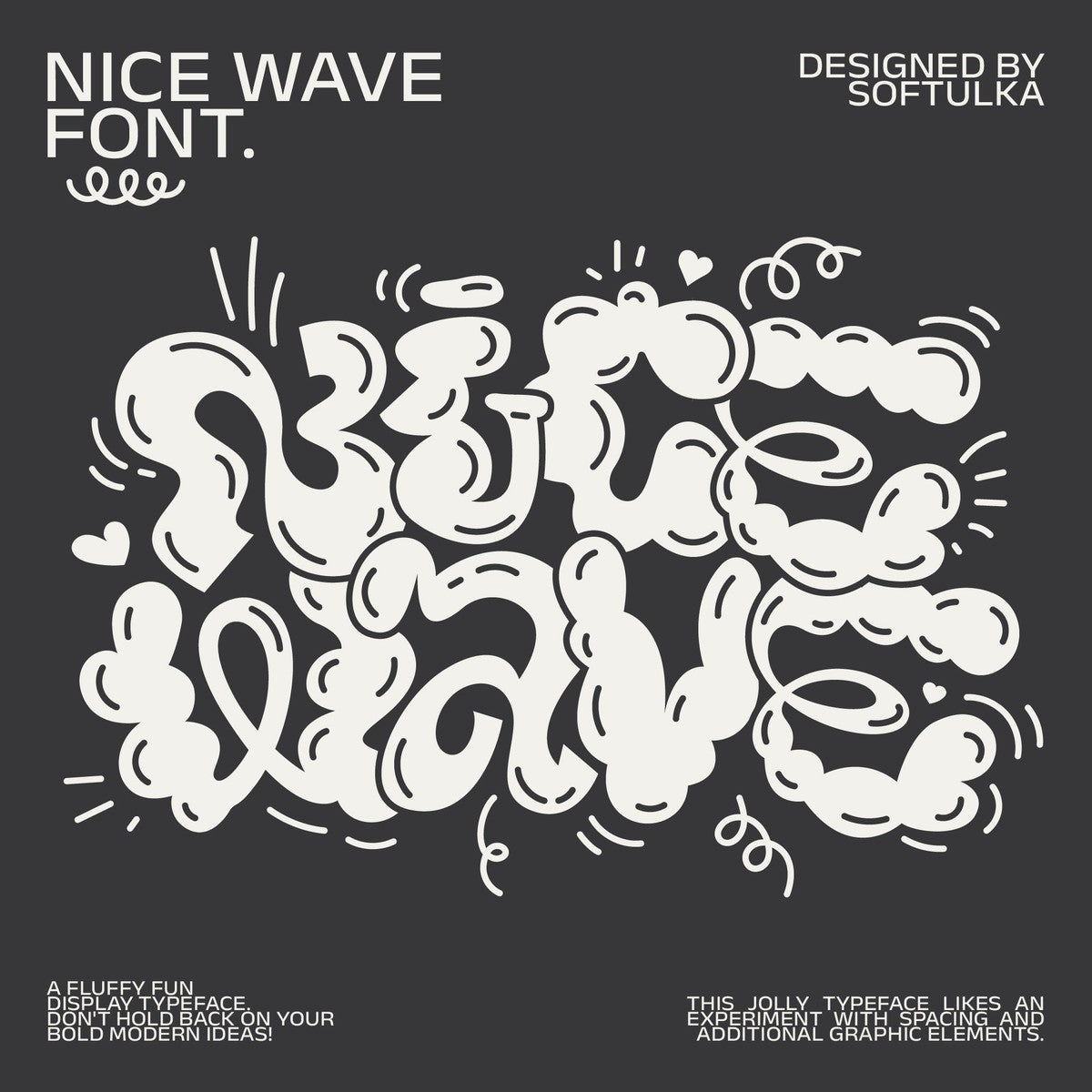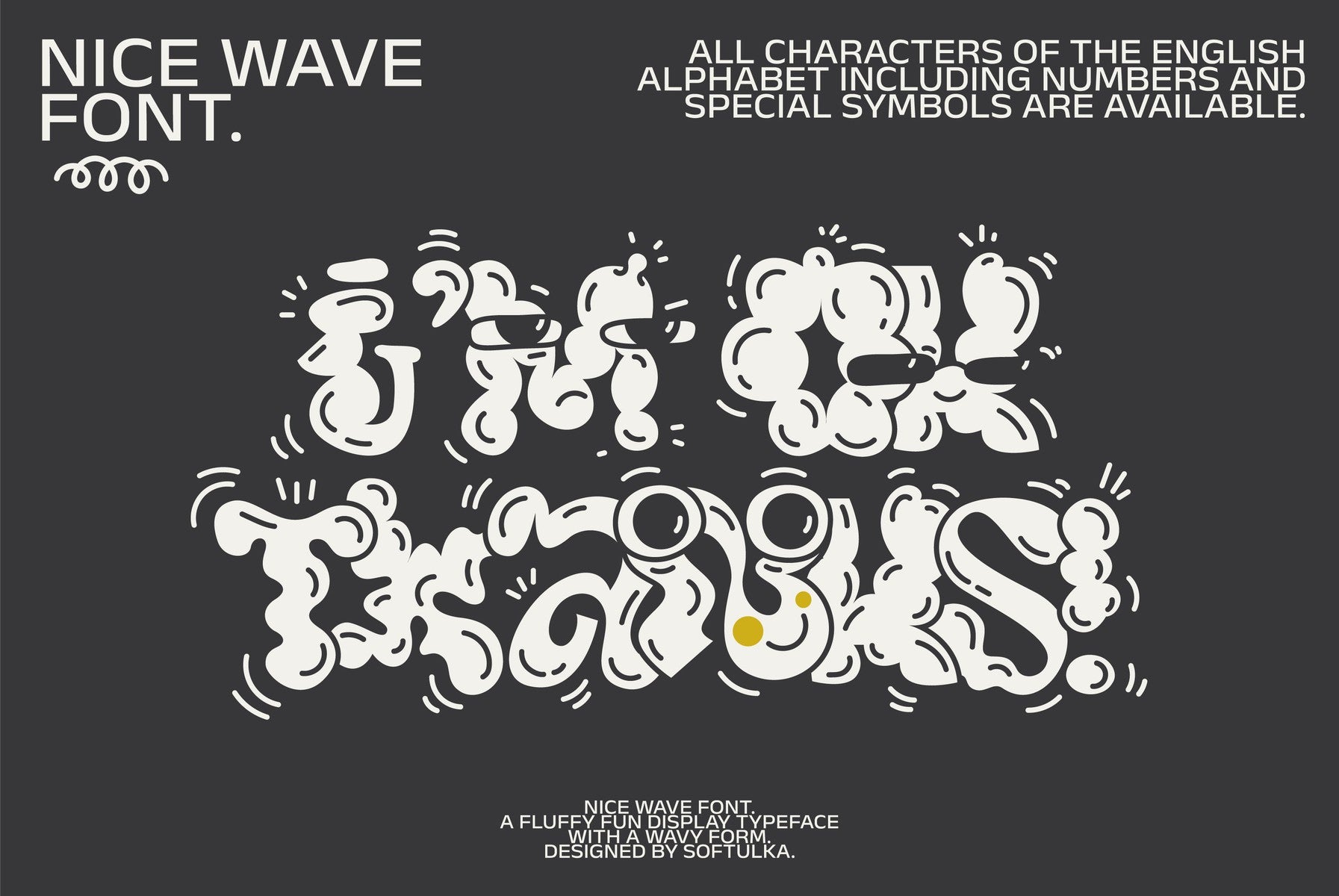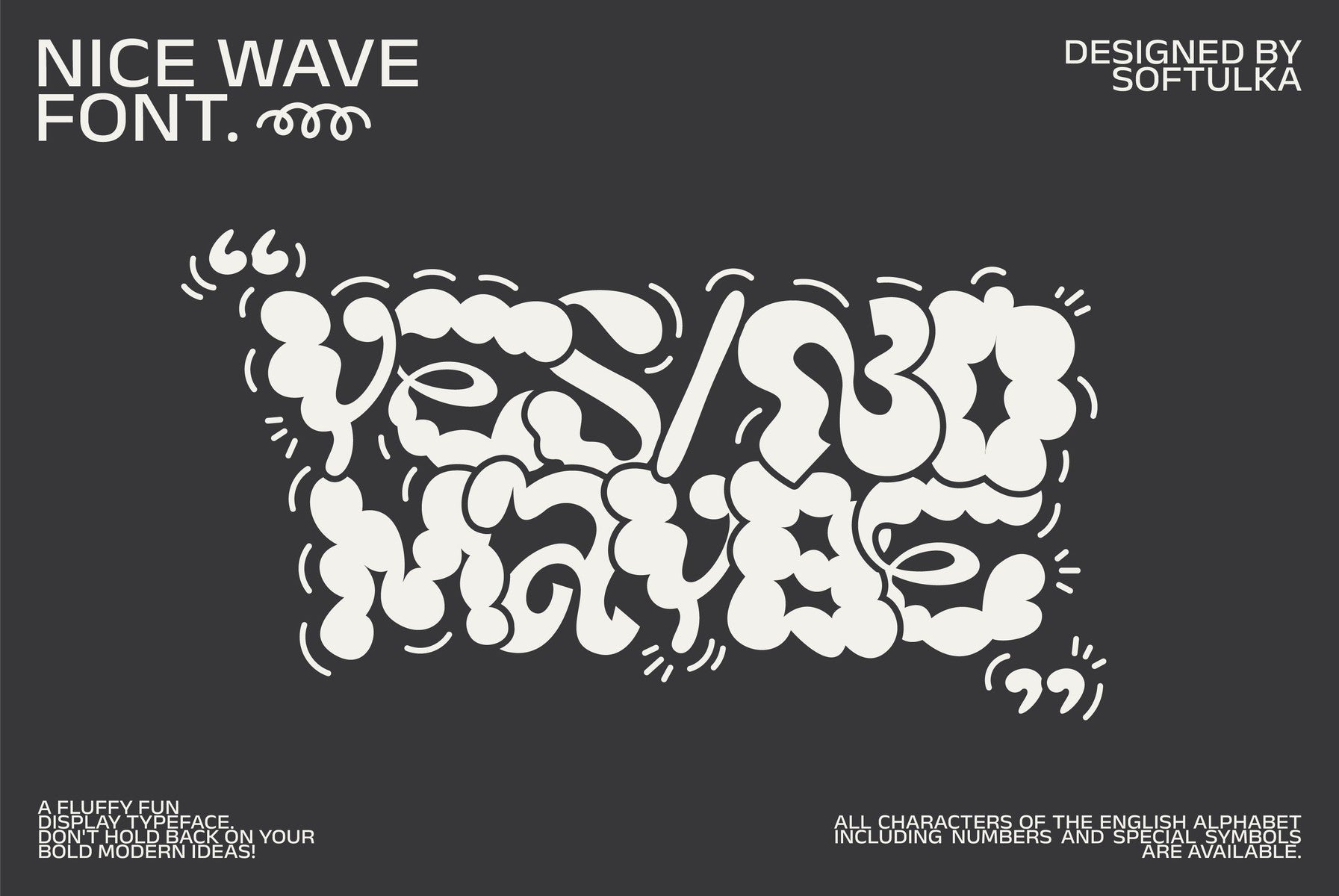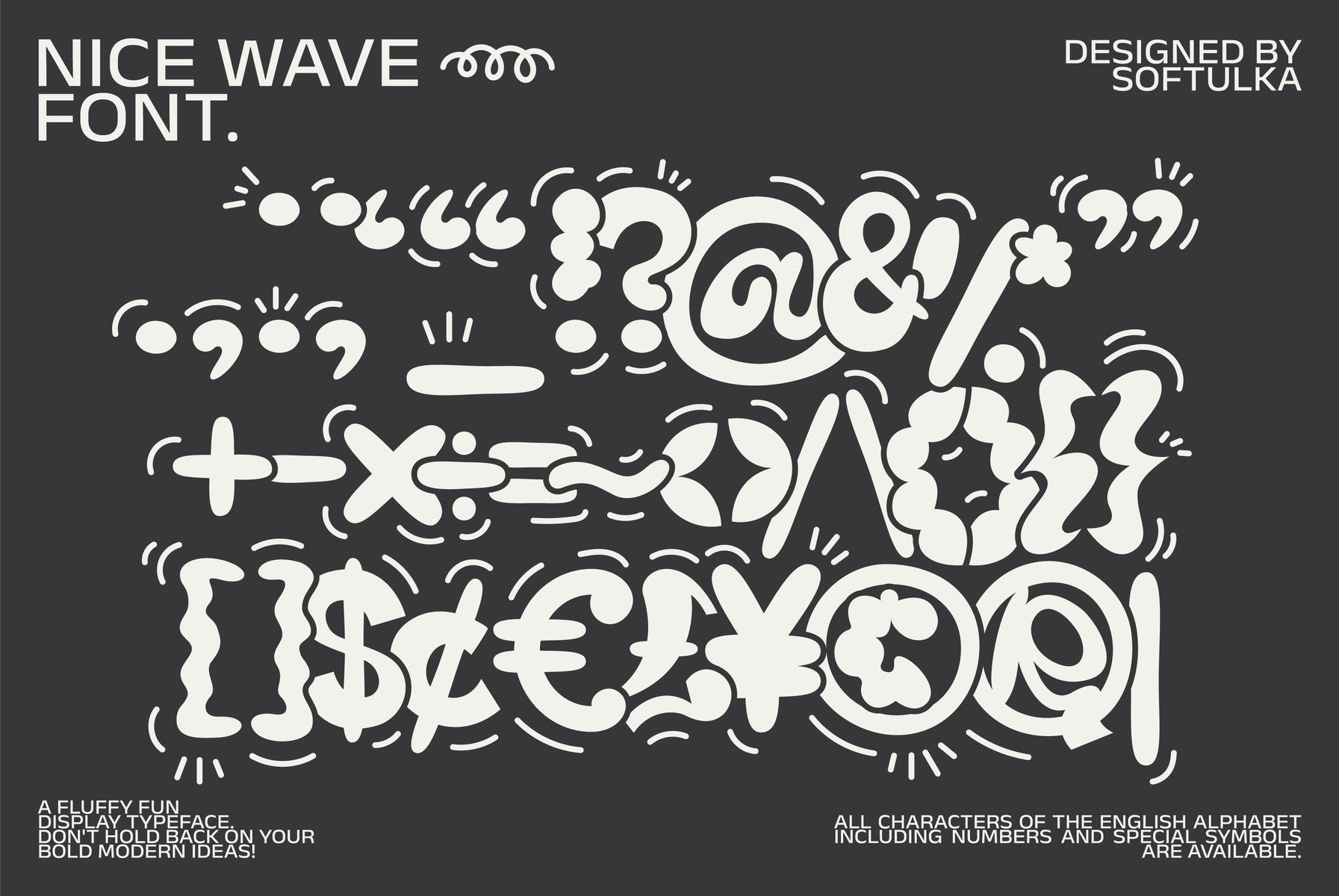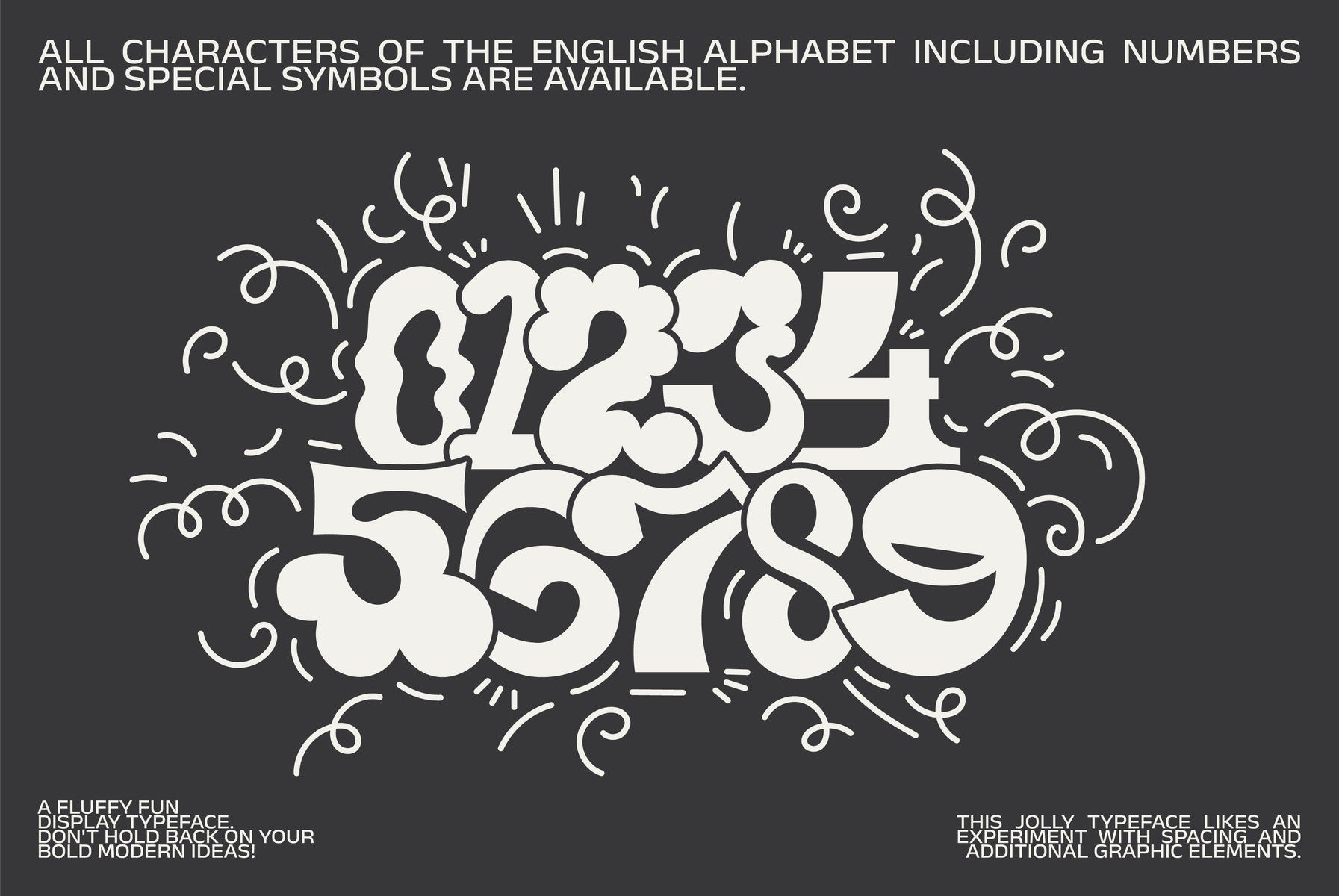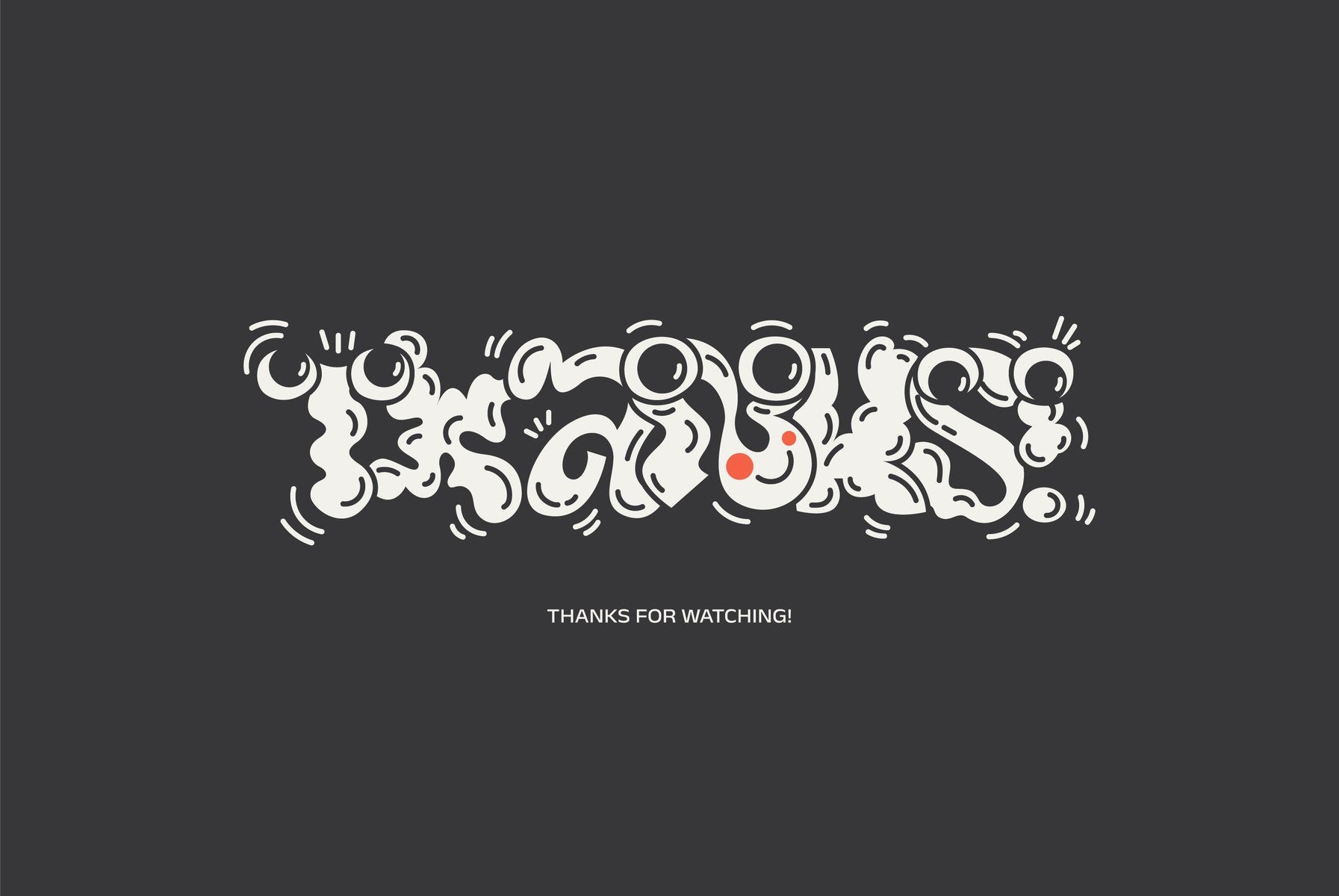
Nice Wave Font - Fun Display Typeface
Nice wave font - a fluffy fun display typeface with a wavy form. This decorative font works perfectly for bold titles, festival posters, as a graphic element for bright T-shirts or hoodies, or even backgrounds! This weird and ugly typeface likes an experiment with spacing and additional graphic elements. Please, don't hold back on your bold modern ideas!
The Nice Wave Font - Fun Display Typeface is a decorative, wavy form typeface that is ideal for bold titles. It comes with an OTF, TTF, and WOFF file, along with a PDF preview.